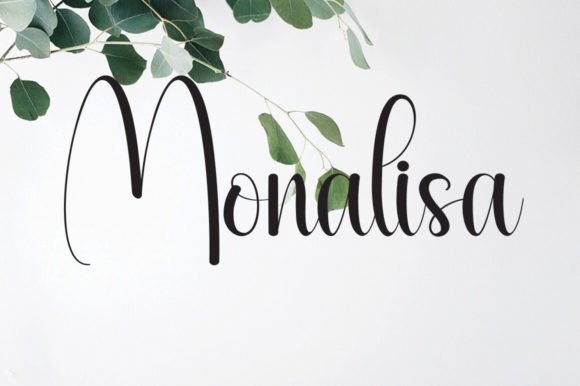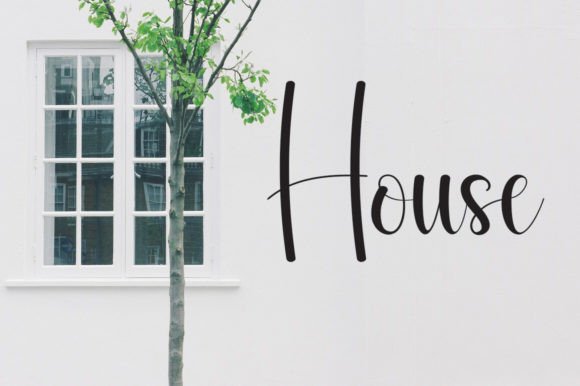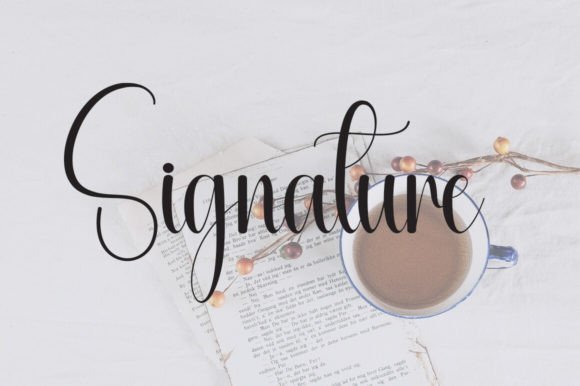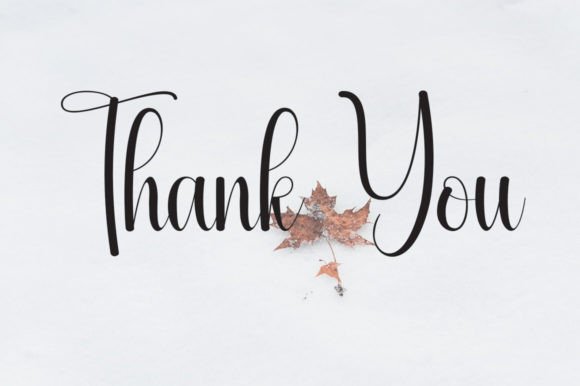
Introducing Autography Font: Elevate Your Designs with Elegant Cursive Flair
Are you tired of using the same old fonts for your design projects? Look no further than Autography, a handcrafted font that embodies the perfect blend of elegance and whimsy. With its cursive flair and sweet nature, Autography is sure to infuse your designs with a joyful and romantic vibe that’s sure to captivate your audience.
The Story Behind Autography
Autography is more than just a font – it’s a work of art. Crafted with love and attention to detail, this font is designed to bring a touch of sophistication and charm to your designs. Its delicate curves and flowing lines evoke a sense of romance and elegance, making it perfect for designers and crafters looking to add a personal touch to their work.
What Sets Autography Apart
So, what makes Autography stand out from the crowd? Here are just a few features that set it apart:
• Handcrafted with love: Autography is a unique, handcrafted font that’s been carefully designed to bring a touch of personality to your designs.
• Cursive flair: With its elegant cursive lines, Autography adds a touch of sophistication and whimsy to any design.
• Whimsical and sweet: This font’s playful nature makes it perfect for designers and crafters looking to add a touch of joy and romance to their work.
• Delicate design: Autography’s intricate design is aesthetically pleasing and sure to elevate your creative endeavours to unprecedented heights.
How to Use Autography in Your Designs
Autography is incredibly versatile, making it perfect for a wide range of design projects. Here are just a few ideas to get you started:
• Wedding invitations: Add a touch of romance and elegance to your wedding invitations with Autography.
• Branding and packaging: Use Autography to create unique and eye-catching branding and packaging that sets your business apart.
• Social media graphics: Add a touch of whimsy and personality to your social media graphics with Autography.
• Stationery and cards: Use Autography to create beautiful, one-of-a-kind stationery and cards that are sure to impress.
Tips for Getting the Most Out of Autography
To really make Autography shine, here are a few tips to keep in mind:
• Experiment with different sizes and colours: Autography looks great in a variety of sizes and colours, so don’t be afraid to experiment and find the perfect combination for your design.
• Pair it with other fonts: Autography pairs beautifully with other fonts, so try combining it with a bold or sans-serif font for added contrast.
• Use it sparingly: While Autography is a beautiful font, it can be overwhelming if used too much. Use it sparingly to add a touch of elegance and whimsy to your design.
In conclusion, Autography is a truly unique and special font that’s sure to elevate your design projects to new heights. With its elegant cursive flair, whimsical nature, and delicate design, Autography is the perfect choice for designers and crafters looking to add a touch of sophistication and charm to their work. So why wait? Try Autography today and see the difference it can make in your designs!